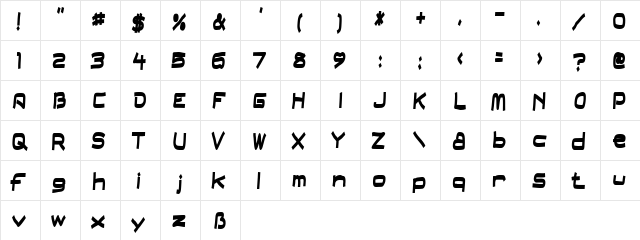
FieldDayFilter Regular
Design Context for FieldDayFilter Typeface
FieldDayFilter takes a measured approach to typography — its balanced proportions and neutral character make it a reliable workhorse for both digital and print work.
Pro Tip: Use FieldDayFilter in both headline and body roles to test its range before committing to a single application.